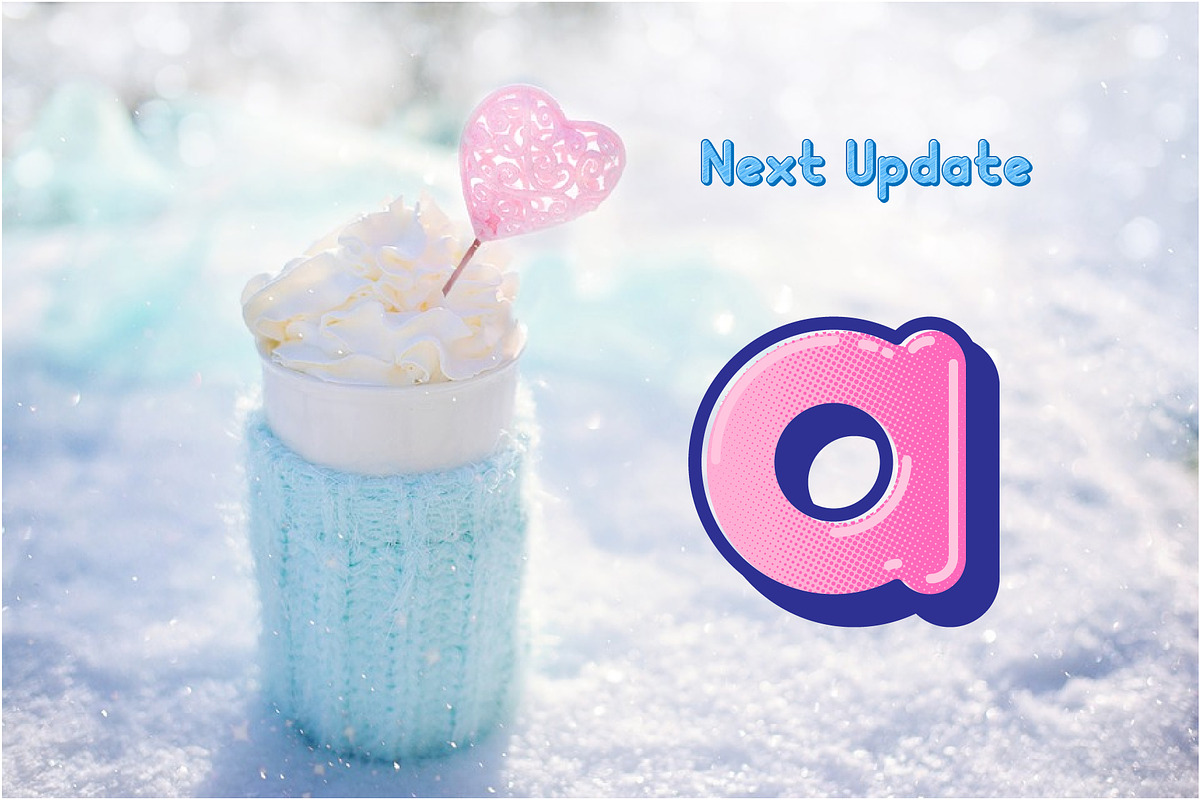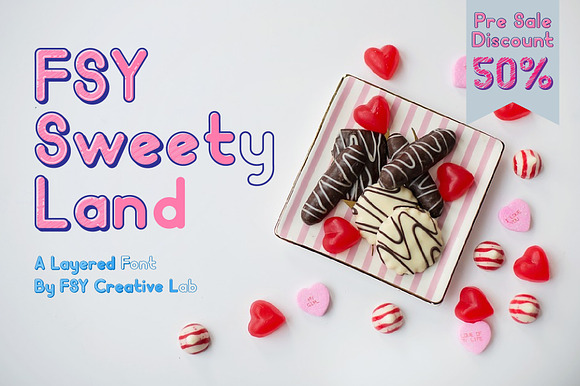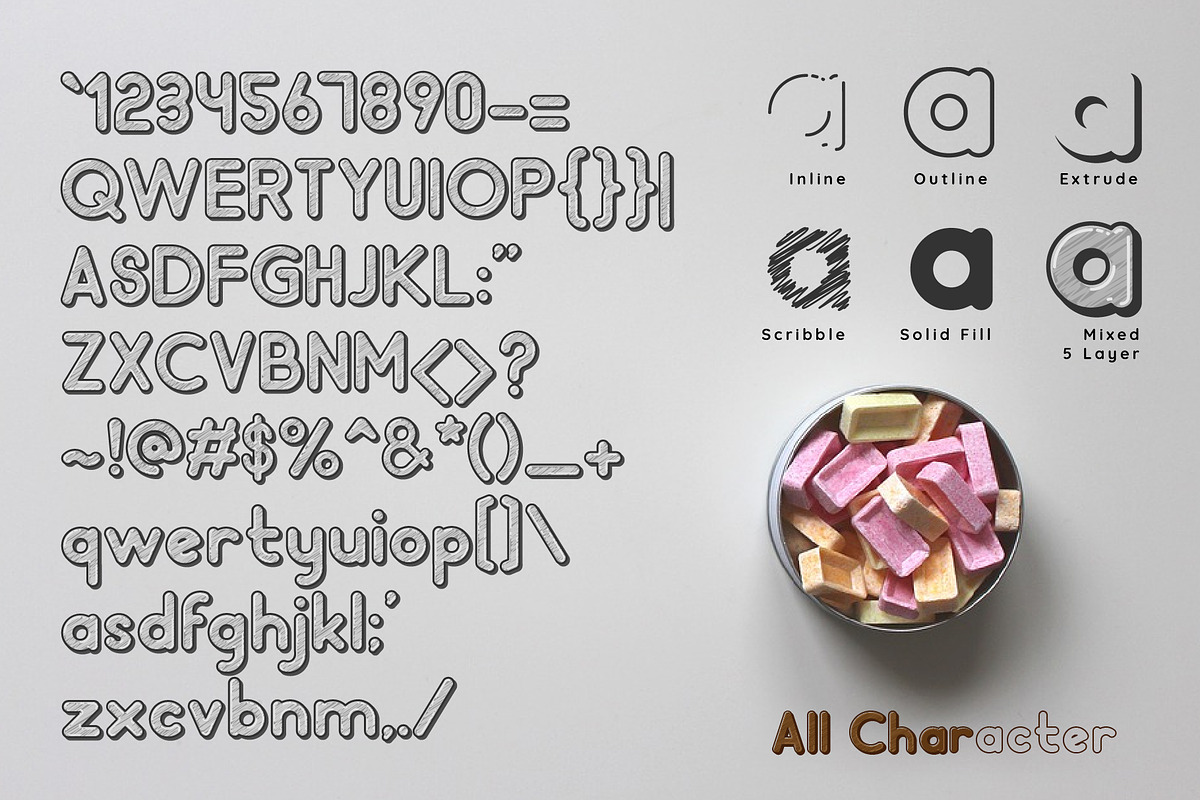
FSY Sweety Land Layer Font
FSY Sweety Land is a font that can be varied by using layer, very easy to use just stacking font by font
- FSY Sweety Land Outline
- FSY Sweety Land Extrude
- FSY Sweety Land Inline
- FSY Sweety Land Scribble
- FSY Sweety Land Solid Fill
Why FSY Sweety Land Layer Font is worth a look
FSY Sweety Land Layer Font by FSY Creative Lab fits naturally into Branding, posters, packaging, typography.